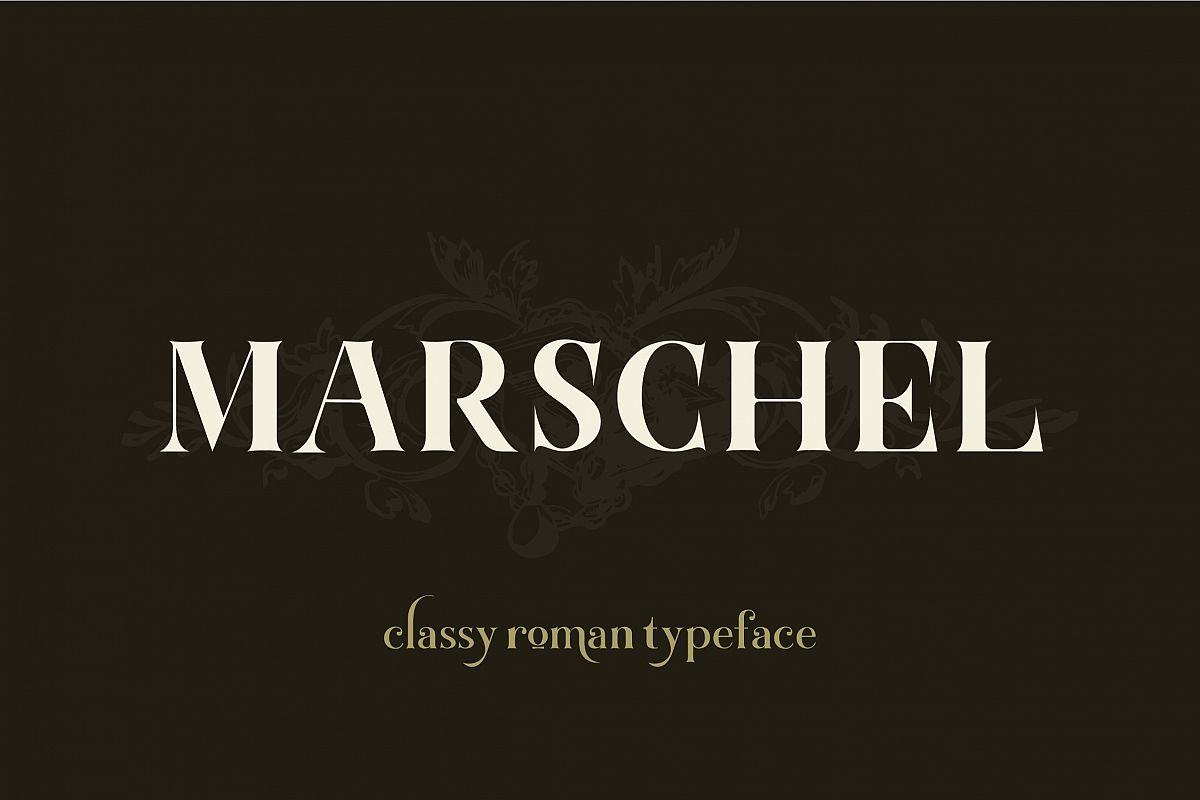
Marschel | a Classy Roman Typeface
Marschel is an elegant and classy roman typeface with unique curves to creates the high-class impression of any letters that formed by this font. In Latin-script typography, roman is one of the three main kinds of historical type, alongside blackletter and italic.
Marschel consists of 291 total glyphs and comes in 3 different weights, Light - Regular - Bold. All glyphs are divided into several OpenType features such as some astonishing special characters that formed into Ligatures and contextual alternates, Marschel is multilingual and supports more than 60 languages. If you are a huge fan of classy, robust and fashionable typeface, then this one is certain to become a staple in your font collection.
Marschel is well-suited for prints, branding, magazine, headline, poster, packaging and applicable for any type of graphic design.